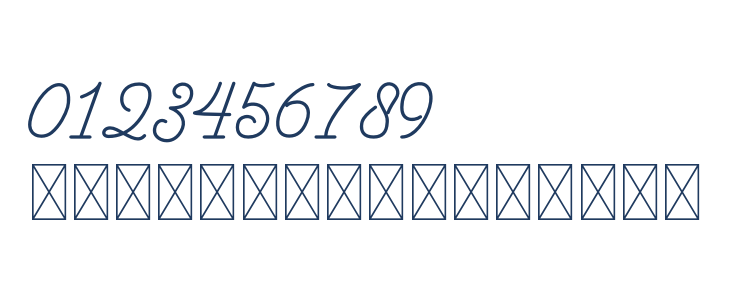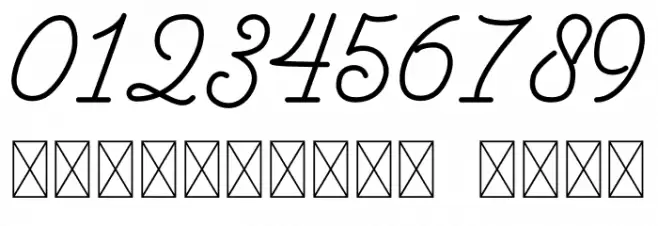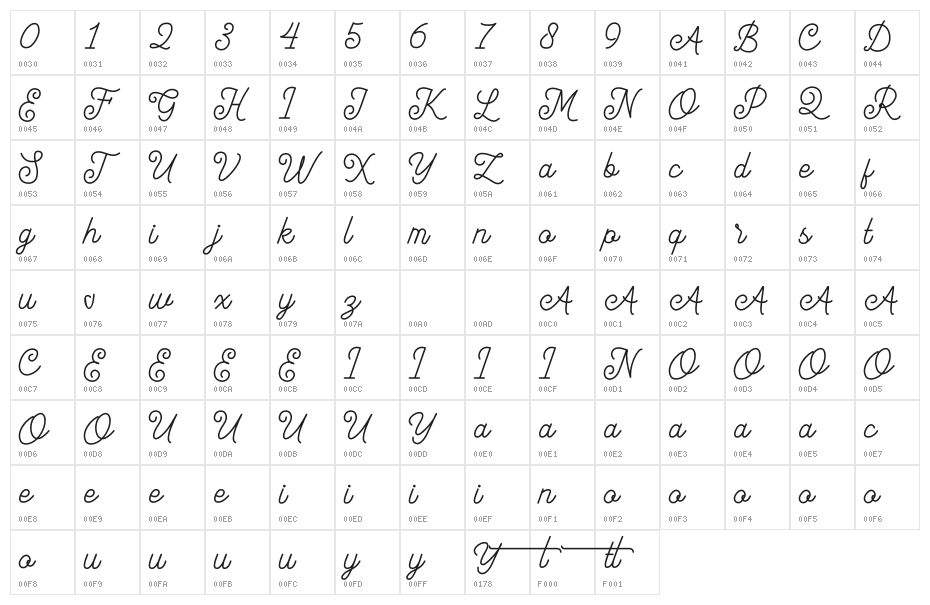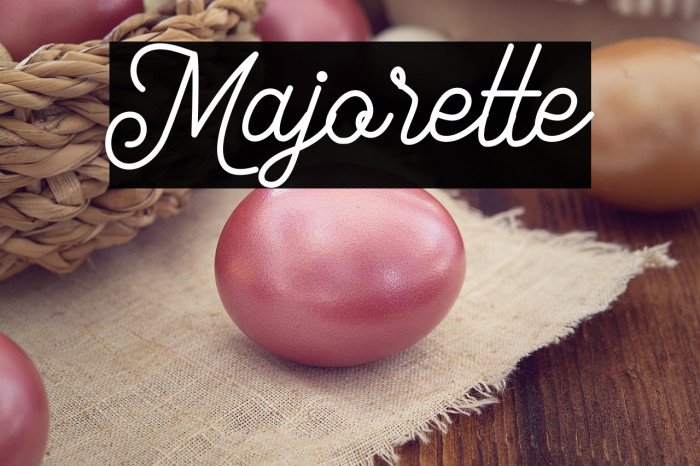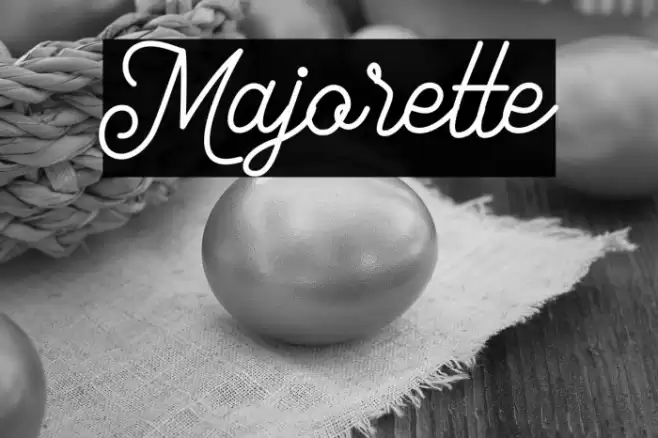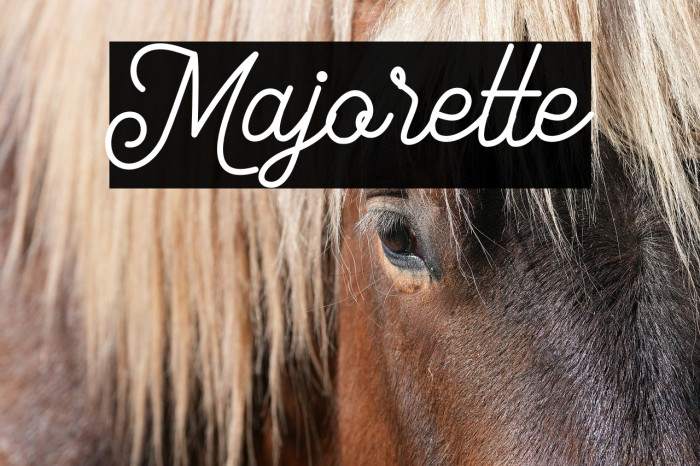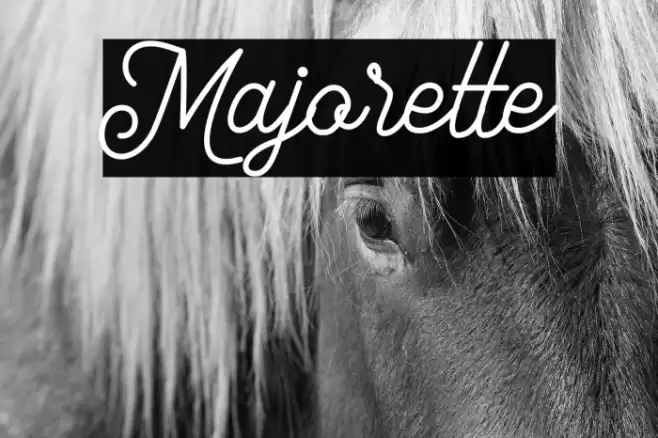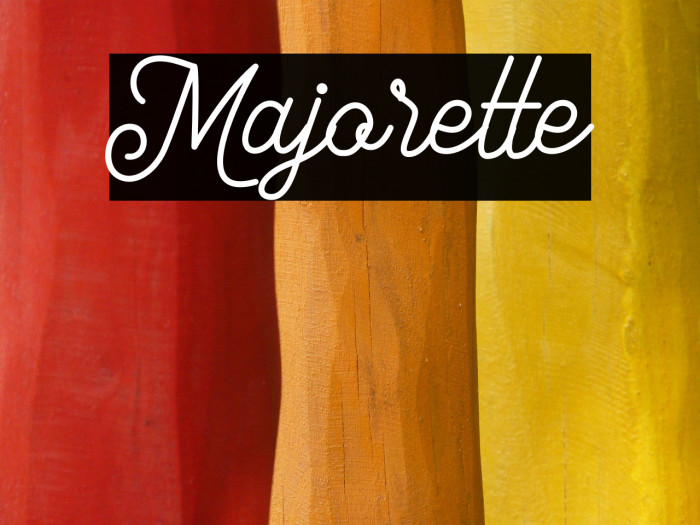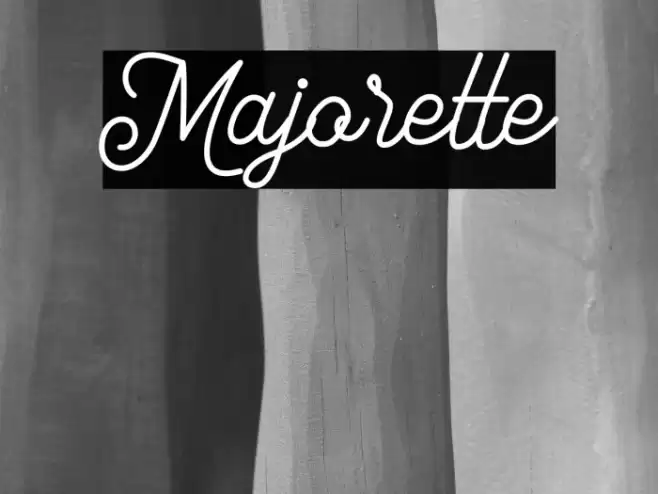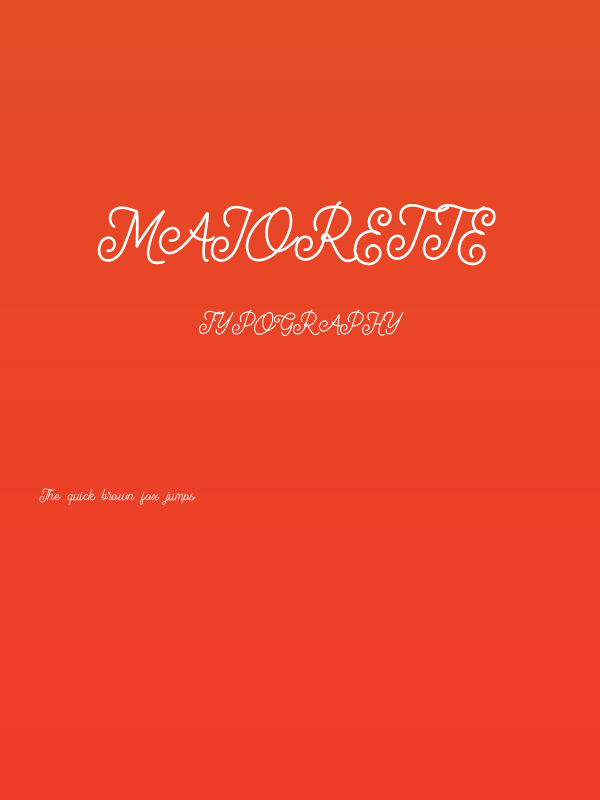
Majorette Font
Majorette Description
This font features an elegant and flowing script style, characterized by its smooth, continuous strokes and graceful curves. The uppercase letters are adorned with decorative loops and flourishes, adding a touch of sophistication and charm. The lowercase letters maintain a consistent flow, creating a harmonious and cohesive appearance. The numerals are designed with a similar fluidity, ensuring they blend seamlessly with the alphabetic characters. This font exudes a sense of elegance and refinement, making it suitable for formal invitations, branding, and other projects that require a touch of class.
Overall StyleElegant
Use CaseHeadlines, Invitations, Branding
Proposed ProjectsIdeal for wedding invitations, elegant branding, greeting cards, and upscale packaging.